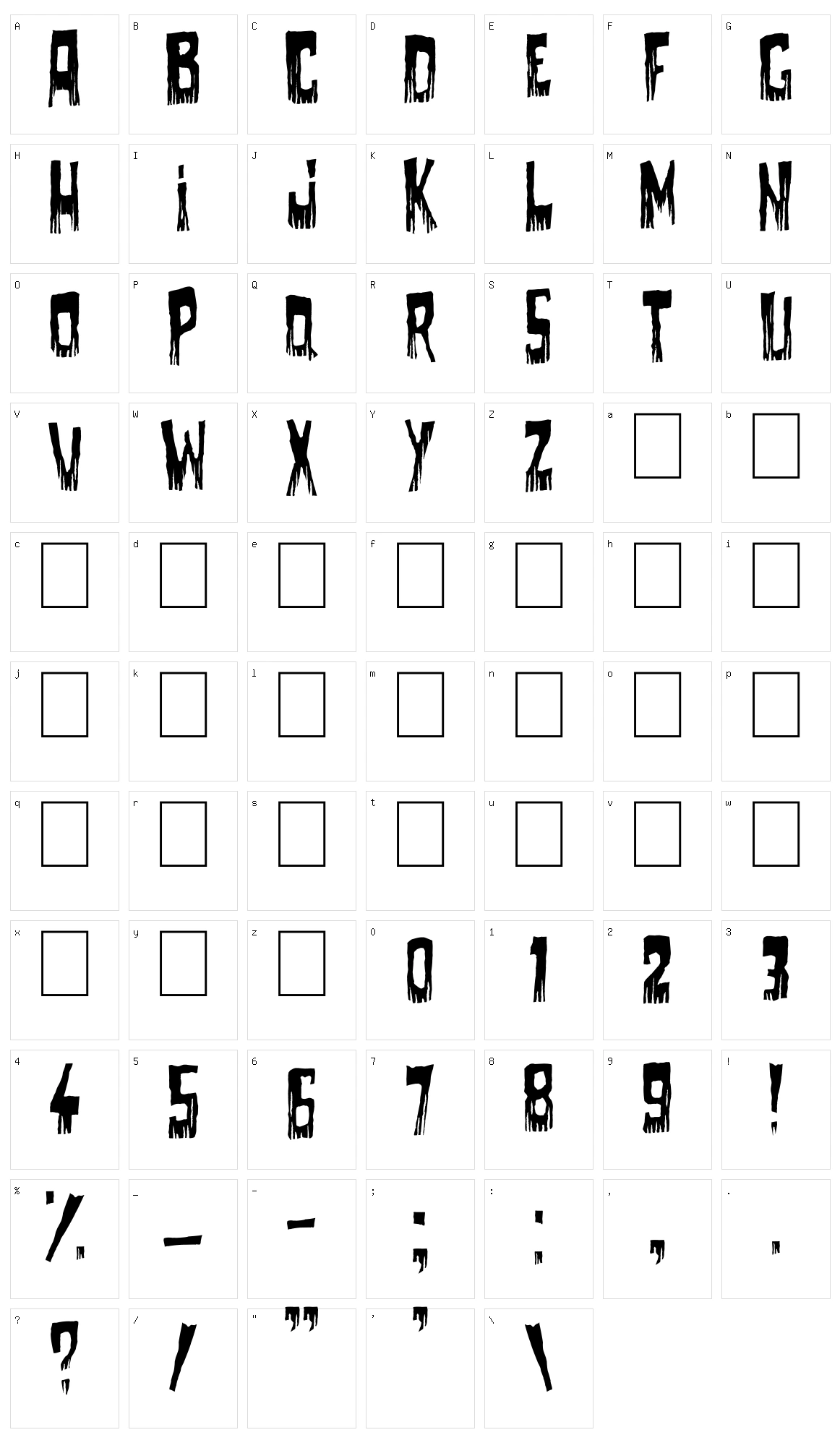
The free font Come With Me is carefully designed by imagex, showcasing a thoughtful balance of creativity and usability and falls under the Horror font style. When you download the ZIP file, it contains only 25.28 KB of font files, making it lightweight and quick to download. Please review the license details below to understand permitted usage and distribution rights. If license information is not available, we recommend using this font for personal projects only or contacting the author directly for commercial usage permissions.